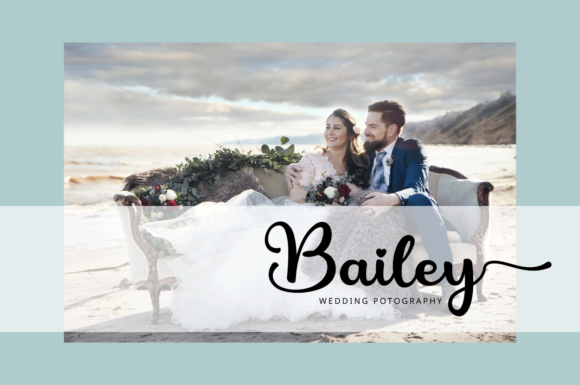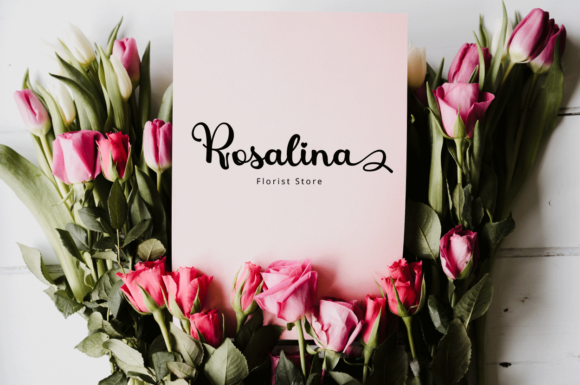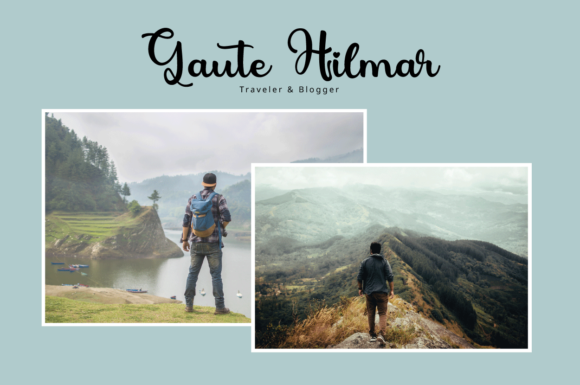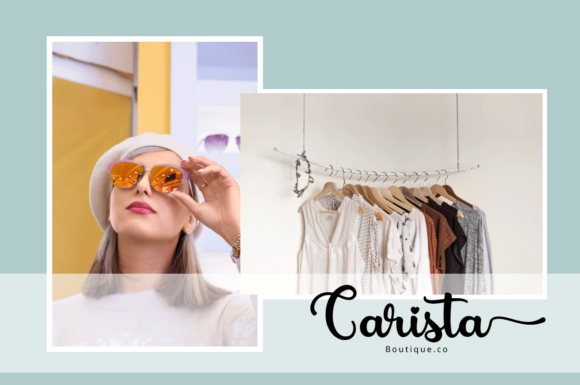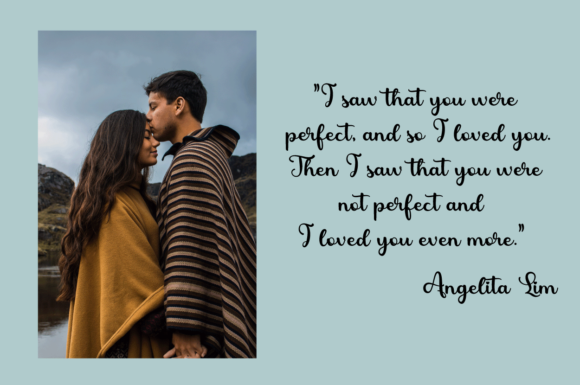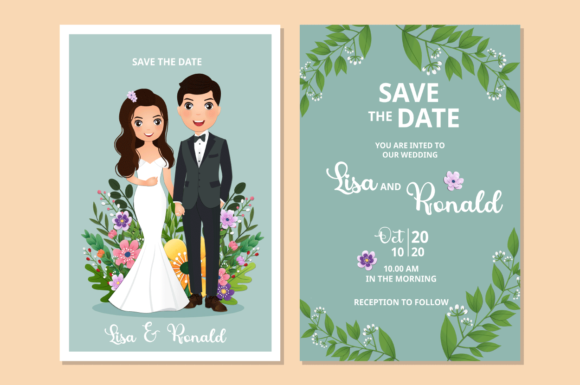
Introduction to Quinza Font
As a designer, there’s nothing quite like the thrill of discovering a new font that elevates your creative project to the next level. You’re staring at a blank canvas, and suddenly, the perfect typeface pops into your head – one that adds a touch of elegance and sophistication to your design. For me, that moment came when I stumbled upon the Quinza Font, a stunning calligraphy typeface that immediately caught my eye.
The Quinza Font is more than just a pretty face – it’s a valuable addition to any designer’s toolkit. With its romantic and sweet aesthetic, it’s perfect for adding a luxury spark to your designs. Whether you’re working on a branding project, a wedding invitation, or a marketing campaign, this font is sure to impress.
Honest Review: Quinza Font
I recently came across the Quinza Font, and I must say it’s been a game-changer for my design projects. This high-quality font has been a valuable addition to my design resource library, providing a fresh and modern aesthetic that’s perfect for creative projects.
- ✨ The Quinza Font comes in a variety of weights, making it versatile and suitable for a range of design applications.
- ✨ The transparent background option is a great feature, allowing me to easily overlay text on images without any unwanted background noise.
- ⚠️ While the Quinza Font is generally well-behaved, I have noticed some issues with font rendering on certain platforms.
Overall, I’m thoroughly impressed with the Quinza Font. Its high quality, versatility, and free download option make it an excellent choice for designers working on creative projects. With a few minor tweaks to address its limitations, I have no doubt that this font will continue to be a valuable resource in the design community.
Tips for Getting the Most Out of Quinza Font
Quinza Font is perfect for creative projects that require a unique and stylish font. To get the most out of it, use it on a transparent background to create a striking visual effect. You can also experiment with different font sizes and colors to add depth and interest to your design.
Common Use Cases for Quinza Font
Quinza Font is commonly used in logo design, branding, and advertising materials. It’s also great for creating eye-catching titles and headings for presentations, reports, and articles.